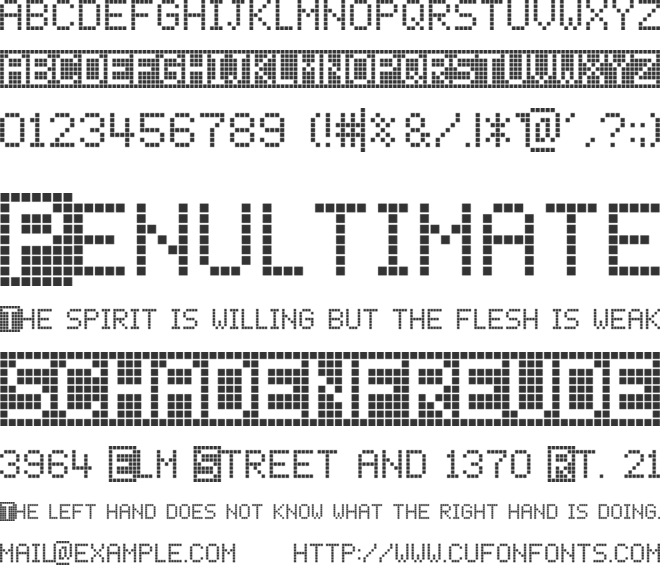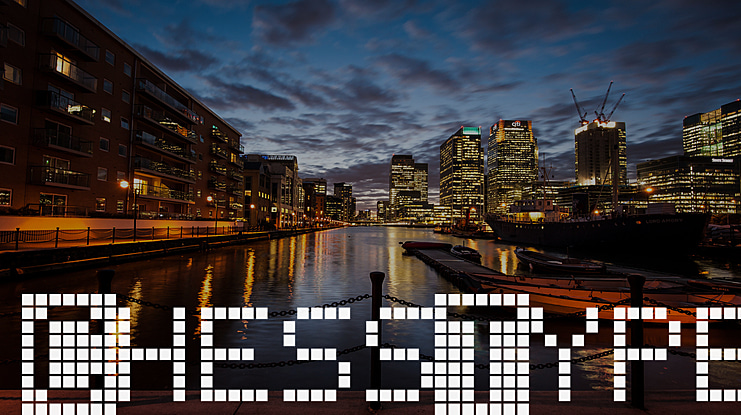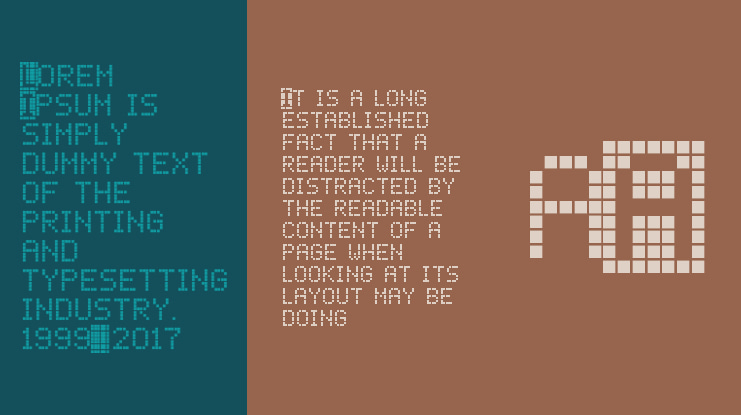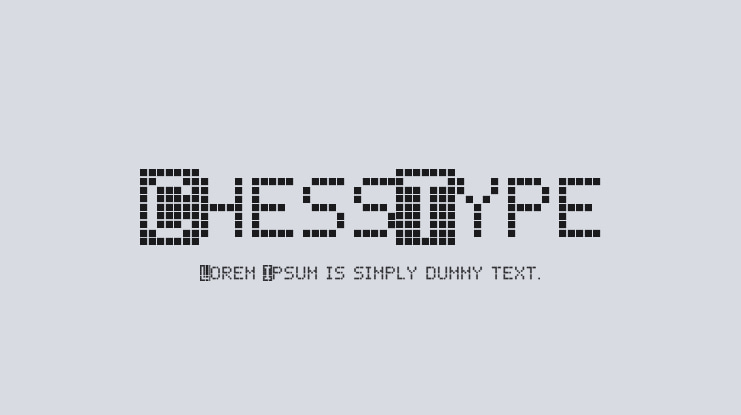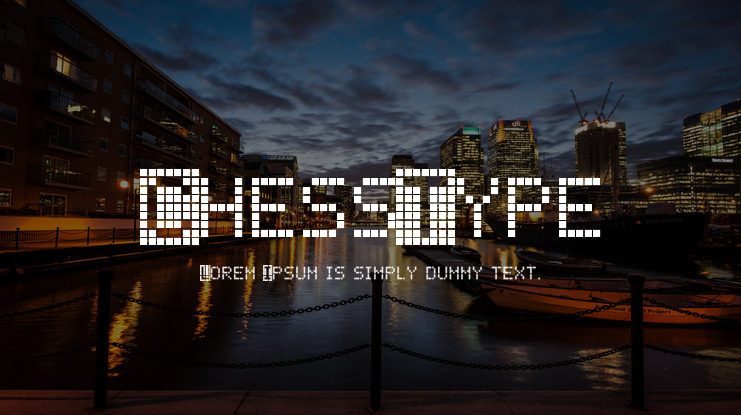
ChessType Font
ChessType is a black & white squared LCD pixel font. The font is free for personal and chess related use only. If used for commercial use, please contact me at